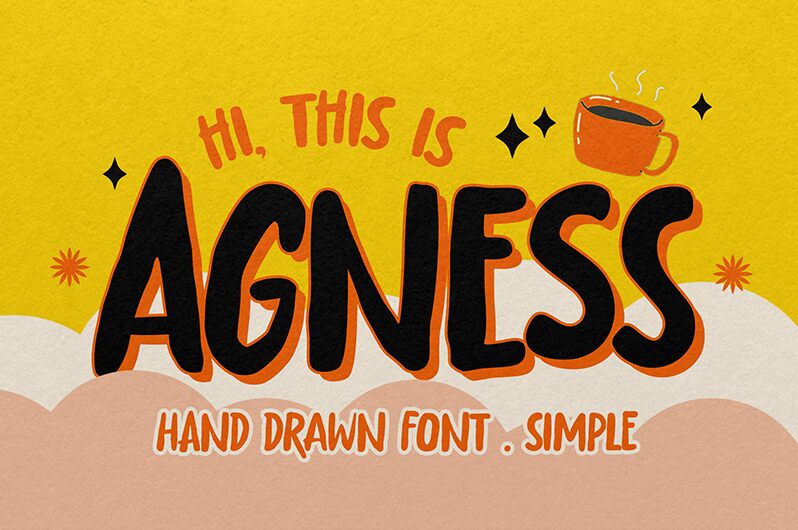
Agness
Agness font by Gassstype is a free handmade bold handwritten font with an organic feel and slightly uneven texture. Its tone is casual, placing it as a great choice in contemporary usage within numerous creative fields.
The font can be used for painted signs, marketing collateral, art store logos, online branding presence, video credit fonts, movie posters, banners design etc. It also has the potential as tattoo designs and even as source inspiration for bottles of homebrew drinks.